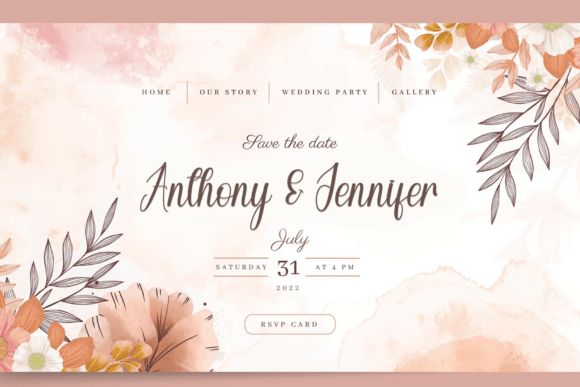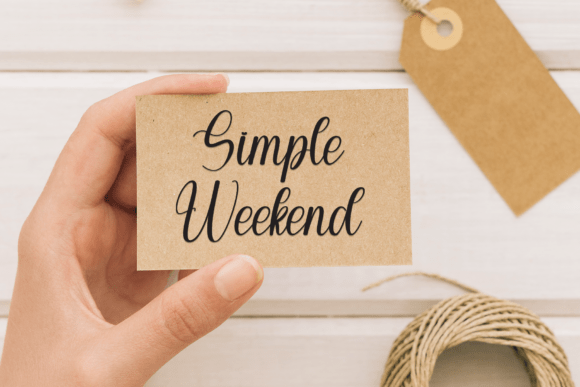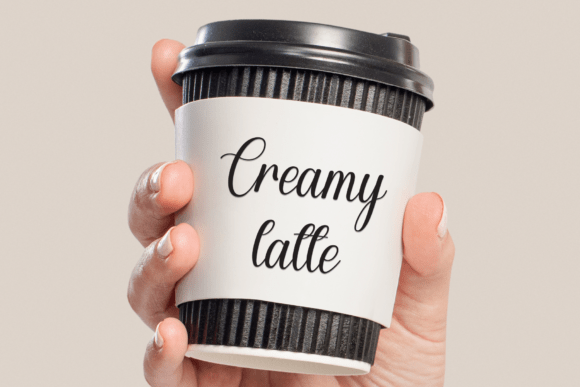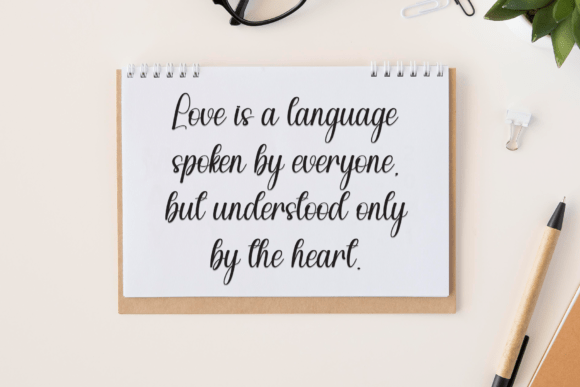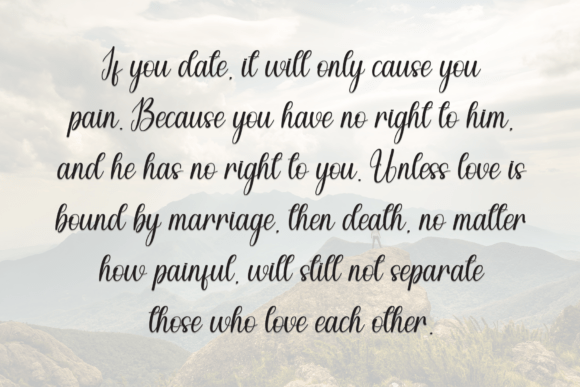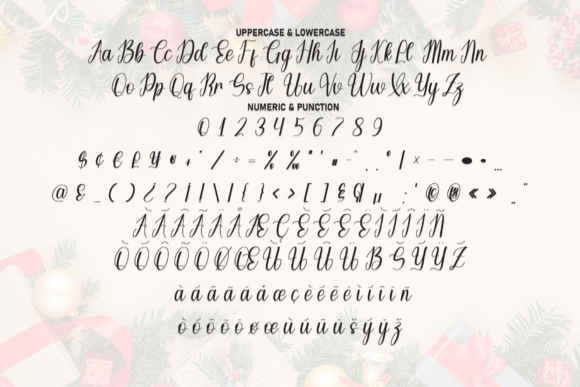
Unwrapping the Charm of Christmasday Font
It’s a moment of truth for every designer – you’re working on a project, and the font just isn’t cooperating. The client wants something that screams elegance and whimsy, but your current font selection is as dull as a gray winter morning. I recall a particularly challenging project where I was tasked with creating wedding invitations that exuded warmth and playfulness. After hours of scouring font libraries, I stumbled upon Christmasday Font – a delightful, hand-scribed script font that instantly elevated my design game.
A Delightful Addition to Your Font Collection
Christmasday Font is a true gem, perfect for designers, crafters, and creative hobbyists looking to add a dash of charm to their projects. Its adorable appeal makes it an excellent choice for:
- Wedding invitations and stationery
- Holiday cards and gift tags
- Infusing a playful twist into branding and packaging designs
- ✅ The whimsical, hand-scribed feel that adds a personal touch to any design
- ✅ Elegant and playful at the same time – a rare find in the font world!
- ✅ Extensive OpenType features, including glyphs and stylistic alternates, for added versatility
- ⚠️ Some characters may require manual kerning for optimal spacing
- ⚠️ Limited availability of uppercase letters with decorative swashes
The Story Behind Christmasday Font
Christmasday Font was designed with the intention of capturing the magic of handwritten scripts. The designer aimed to create a font that would evoke feelings of warmth, joy, and playfulness – perfect for special occasions and creative projects. With its unique blend of elegance and whimsy, Christmasday Font has become a favorite among designers and crafters alike.
Q: What type of projects is Christmasday Font best suited for?
A: Christmasday Font is perfect for wedding invitations, holiday cards, and creative projects that require a touch of elegance and playfulness.
Q: Does Christmasday Font support OpenType features?
A: Yes, Christmasday Font features extensive OpenType support, including glyphs and stylistic alternates.